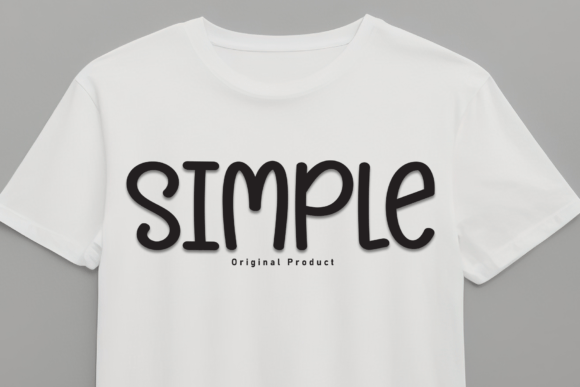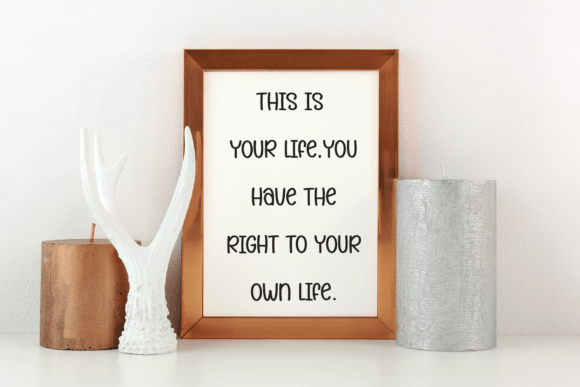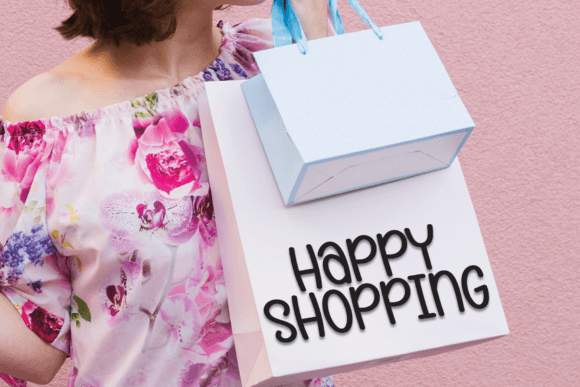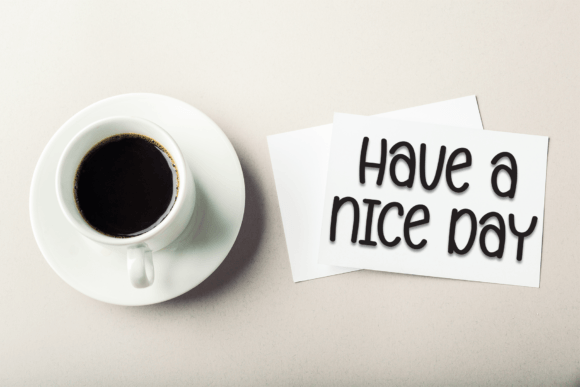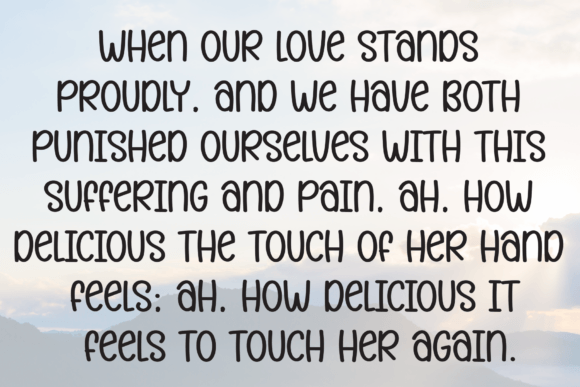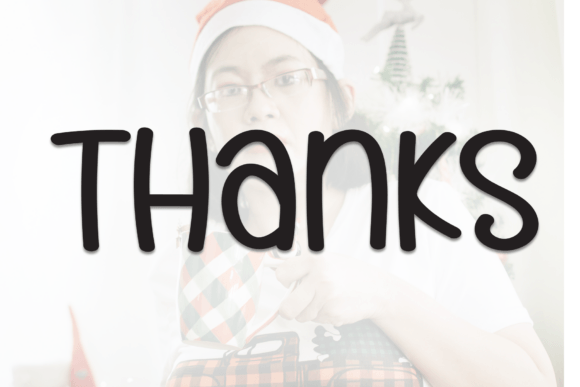
The Magic of Chubby Christmas Font: A Designer’s New Best Friend
I’ll never forget the time I was working on a Christmas project for a client, and I just couldn’t find the right font to match the cheerful and playful vibe they wanted. I scrolled through page after page of font options, but nothing seemed quite right. That was until I stumbled upon Chubby Christmas Font. It’s been a game-changer for me ever since! 🎄
An Honest Review of Chubby Christmas Font
- ✨ Sweet and Friendly Style: Chubby Christmas Font has a natural, handwritten look that’s perfect for creating festive and fun designs.
- ✅ Versatility: Its unique style makes it incredibly fitting for a wide range of designs, from holiday cards to party invitations.
- 💡 Endless Creativity: The only limit is your imagination! This font can be used for so many different projects, and I love experimenting with new ideas.
While Chubby Christmas Font is amazing, there are a few things to keep in mind:
- 🤔 Legibility at Small Sizes: Like many handwritten fonts, Chubby Christmas can get a bit tricky to read at very small sizes. Make sure to test it out before finalizing your design.
- ⚠️ Overuse: While it’s tempting to use this font for everything, it’s best to balance it with other fonts to avoid overwhelming your design.
While I couldn’t find any information on the exact origins of Chubby Christmas Font, I like to imagine that it was created by a designer who loves the magic of the holiday season. Perhaps they were inspired by vintage Christmas cards, festive markets, or cozy winter nights by the fire. Whatever the story, it’s clear that Chubby Christmas Font was designed to bring joy and whimsy to our designs.
A: Yes, Chubby Christmas Font supports OpenType features like ligatures and stylistic alternates, which can add an extra layer of creativity to your designs.